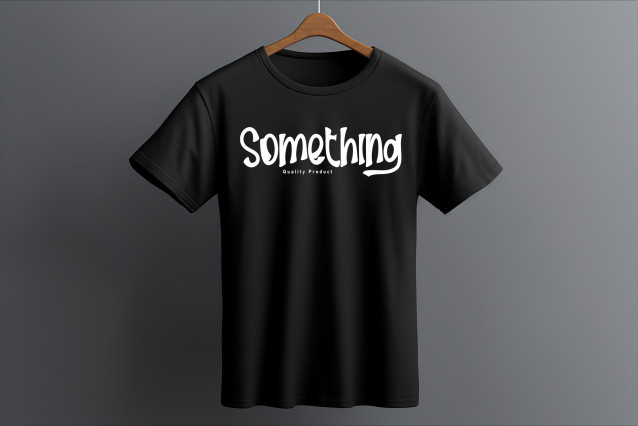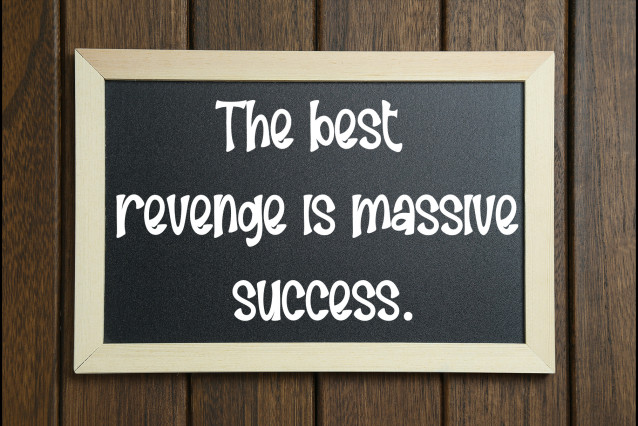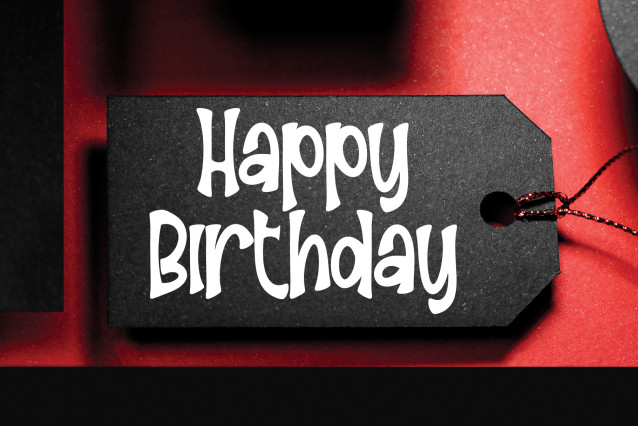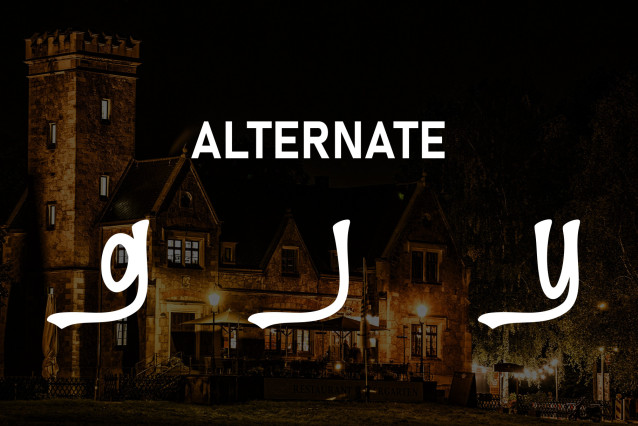
Home Night Display Font
Home Night Display Font is a cozy handwritten font with a relaxed, personal touch. It looks like it’s been written with a gentle hand, making it perfect for adding a warm, inviting feel to any project.